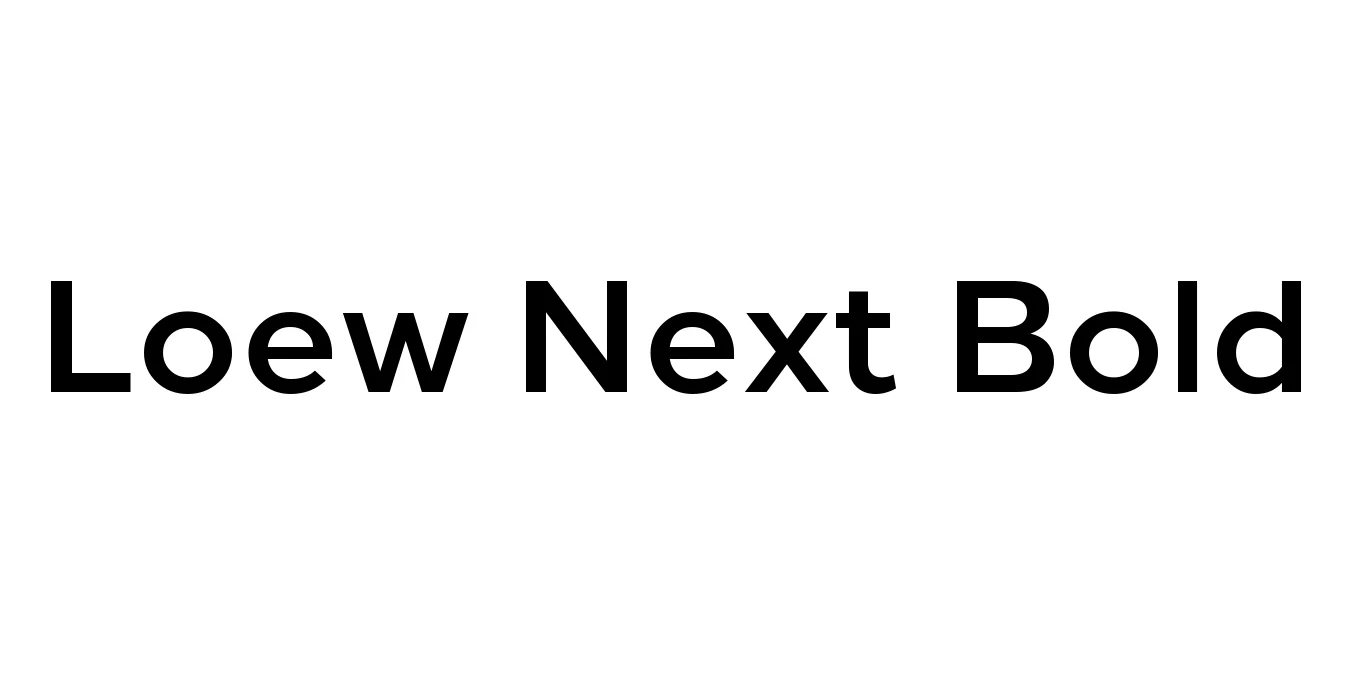
Loew Next Bold
Designed by Jonathan Hill
Loew Next Bold is a sophisticated geometric sans-serif typeface designed by Jonathan Hill of The Northern Block. This typeface represents a refined evolution of the original Loew font, meticulously re-examined to provide better balance, improved legibility, and a more cohesive structure across various weights. The Bold variant specifically offers a robust and authoritative presence, making it an excellent choice for modern communication needs that require both clarity and impact.
The design of Loew Next Bold is characterized by its high x-height and open counters, which contribute to its exceptional readability in both digital and print applications. By blending technical precision with subtle humanistic touches, the font creates a versatile aesthetic that feels equally at home in high-tech environments as it does in luxury branding. It is widely recognized for its clean lines and timeless geometric construction.
Loew Next Bold Best Uses
Ideal for creating strong, recognizable logos and cohesive brand guidelines.
Perfect for bold headings and navigation menus that require high visibility.
Excellent for user interface elements that need to be legible on small screens.
Well-suited for impact-driven headlines in both digital banners and physical posters.